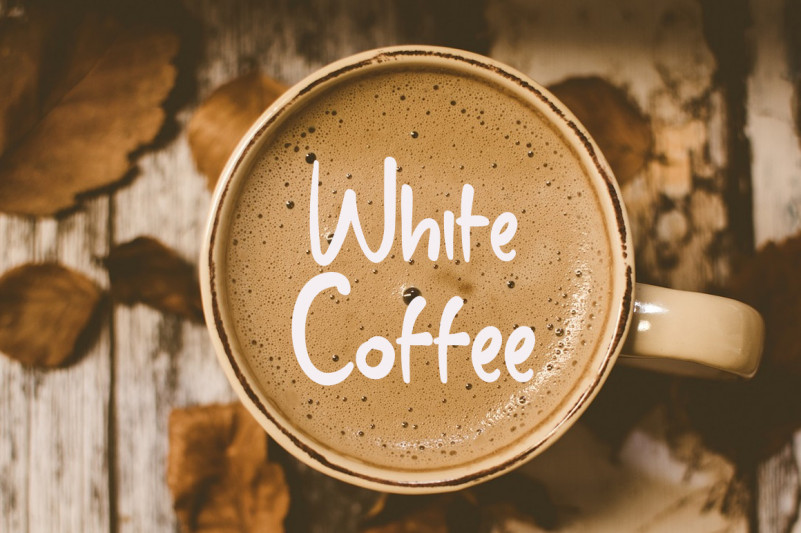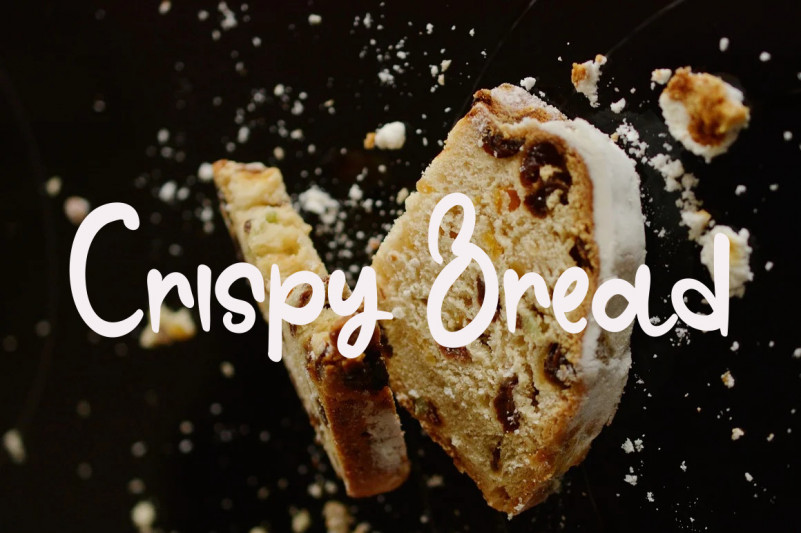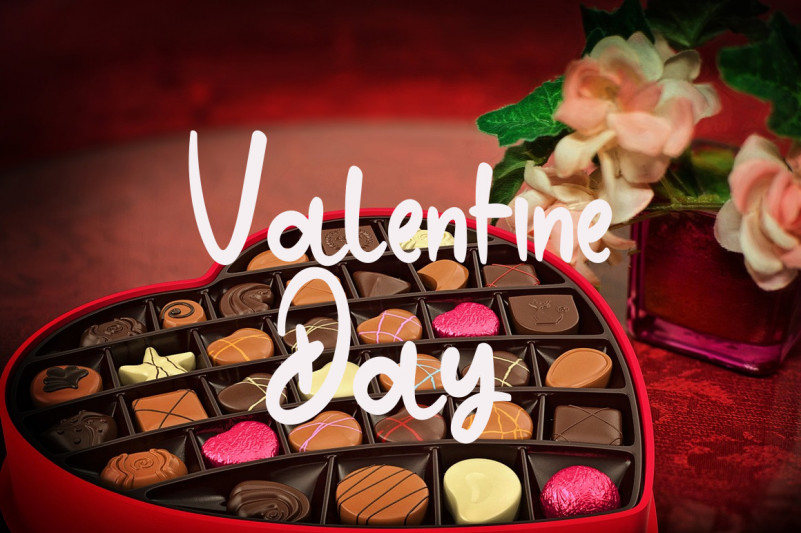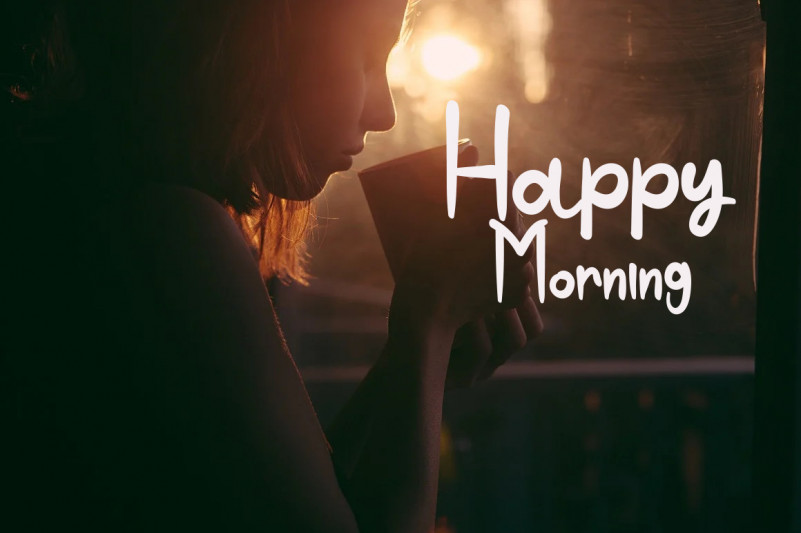
Baby Love Display Font
This is a dainty, genuine and cursive handwritten font. This gentle font will look gorgeous on a variety of design ideas. It will add a joyful and romantic touch to each of your projects!